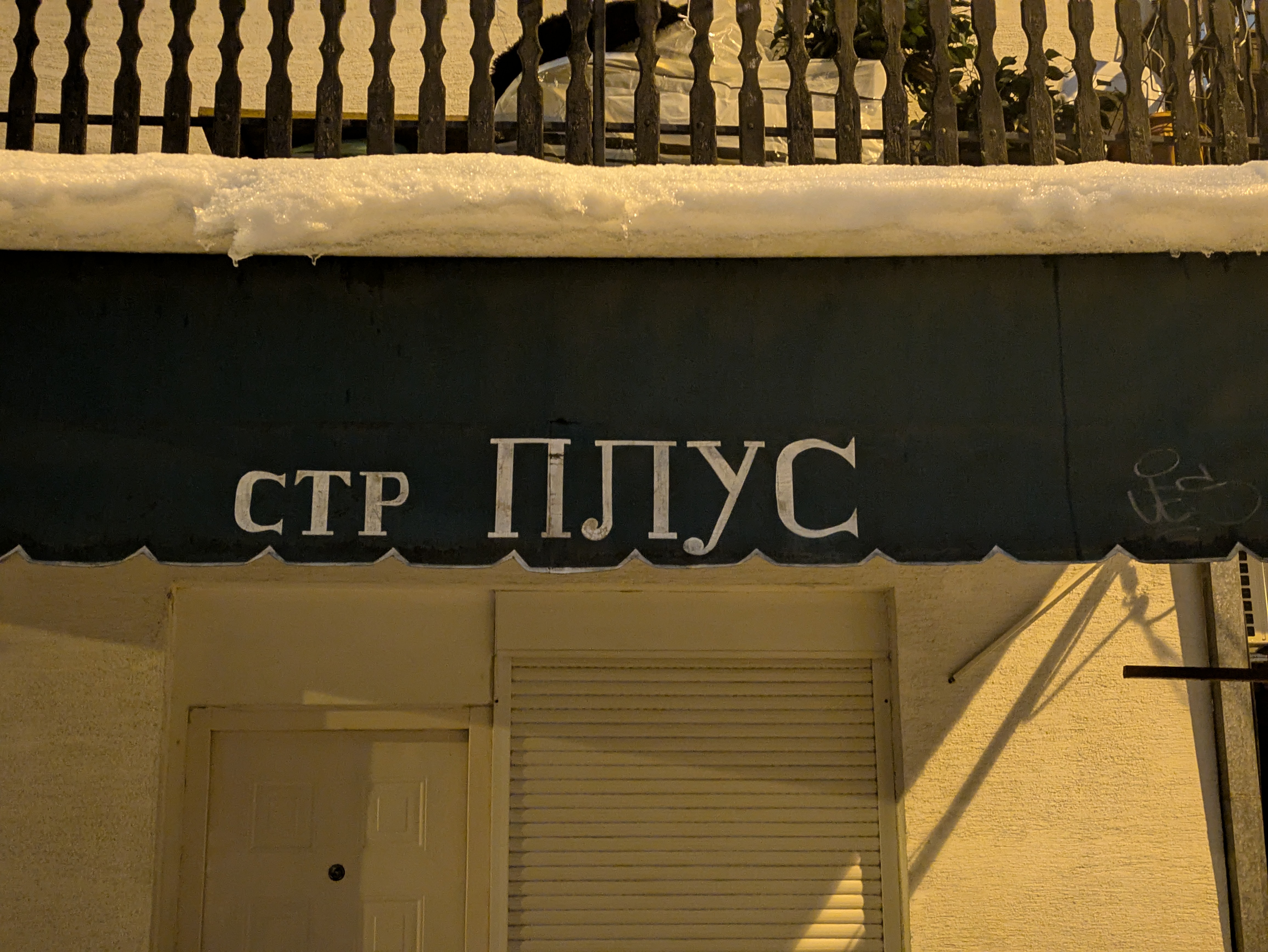
STR PLUS
STR probably stands for 'samostalni trgovac' which means independent retailer. It was likely a small shop run by an independent owner and now appears to be closed.
The sign is definitely a painting that was made by hand, with stems of various widths and a slightly longer tail of У. It is imperfect but authentic.